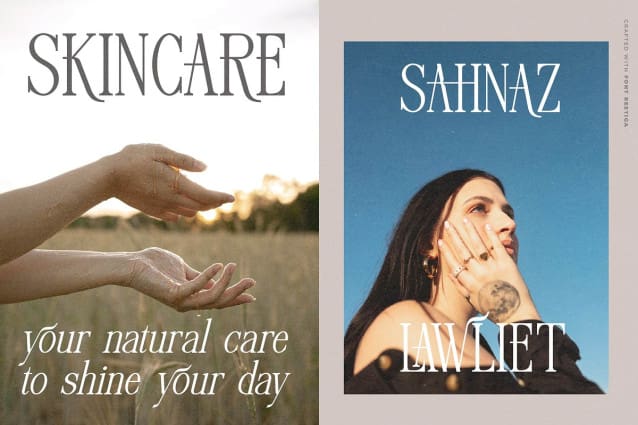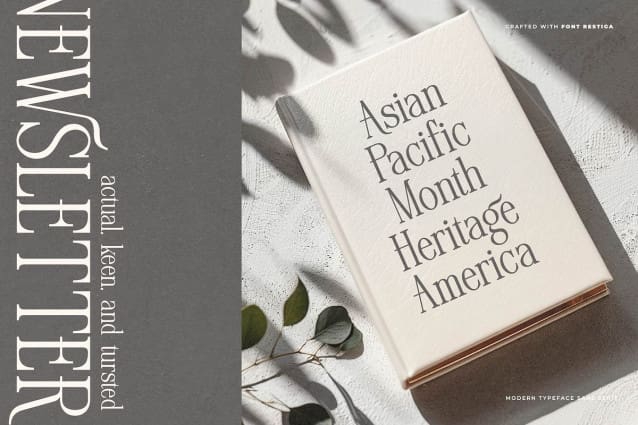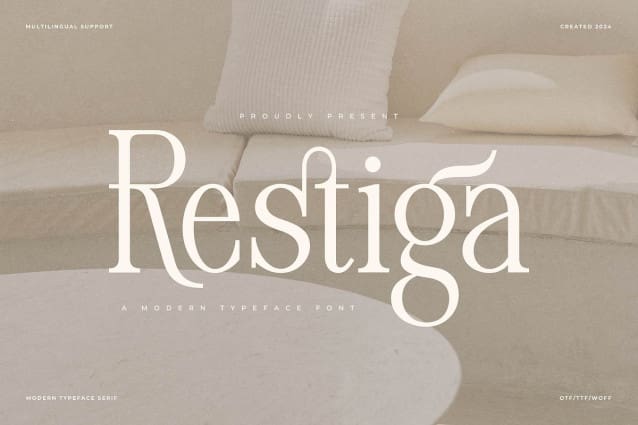
Restiga Font
Restiga Font | Modern Typeface Serif, from Denustudios, suitable for any projects such as: logos, branding projects, homeware designs, product packaging, mugs, quotes, posters, shopping bags, t-shirts, book covers, name card, invitation cards, greeting cards, label, photography, watermark, special events, and all your other lovely projects that need a Modern Typeface Serif taste.